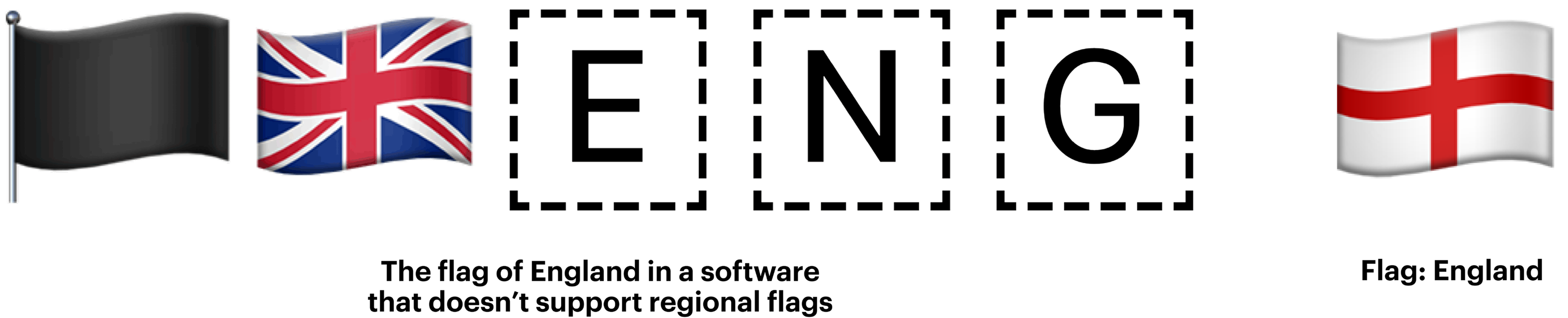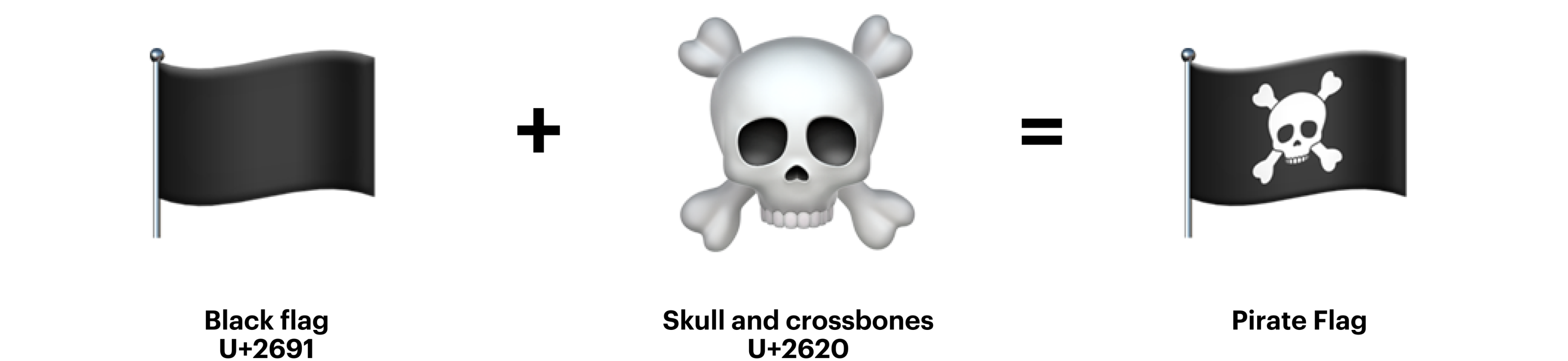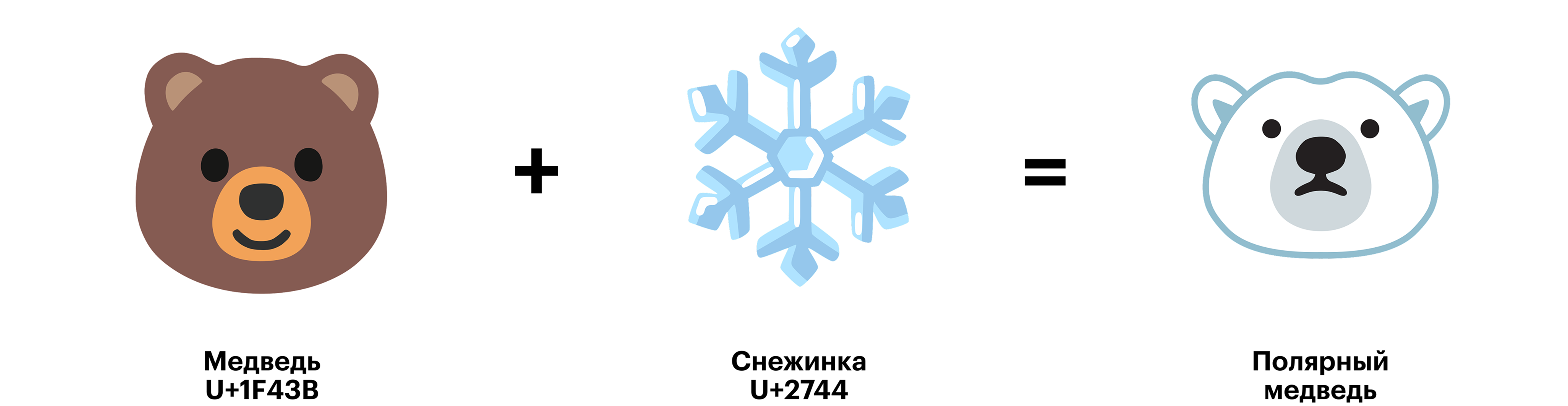
This piece is a part of a joint project by type.today journal and a website focused on various grammatical and broader language issues, gramota.ru. In our series of three episodes, we will approach the topic of emoji from a technological perspective, share how people of different cultures understand certain emojis differently, and address whether it is possible to sue someone who has (allegedly) picked the wrong emoji.
Emojis look different on different platforms and devices. If we draw an analogy with the type world, the emojis are more of a writing system, and each platform (and every operating system) uses its own font to display them.
I don’t understand emoji hostility in type design. A new globally understood ideogrammatical alphabet is developing right before our eyes. It’s not made of monochromatic strokes like the rest of the Unicode table, but it’s a writing system. Ray Larabie TypeDrawers
Apple Emoji is probably the most widely used of these typefaces,
Emoji color fonts
Today’s most common emojis are those offered by color fonts of various formats. Apple emojis are an SBIX font comprised of bitmap images. A designer working on an SBIX uploads five images of different sizes into the font editor software, ranging from 32 to 512 pixels wide. That is why one cannot use SBIX fonts in a very large size.
There are also color fonts comprised of vector
Some type designers are skeptical towards the idea of creating emoji fonts, as it is virtually impossible to draw a full emoji set without using color, with browser support still being far from perfect when it comes to color fonts.
I’m not very likely to include emoji as part of the character set in my future fonts. This is partly because of the technical issue: most emoji require or at least benefit from color. No single color font format is very well-supported. Thomas Phinney TypeDrawers
Emoji ligatures
Some of the emojis we’re used to are actually ligatures. With the help of a special symbol that ‘glues’ the ligatures, Zero Width Joiner, multiple emojis with different meanings are transformed into one.
For instance, the female scientist emoji (👩🎓) is made up of a woman emoji (👩) and an academic (aka graduation) cap (🎓) emoji. The woman astronaut emoji (👩🚀) is made up of a woman (👩) and a rocket (🚀). The full list of emoji ligatures is available on the Unicode website. Since September 2023, the Zero Width Joiner helps control the direction of emoji.
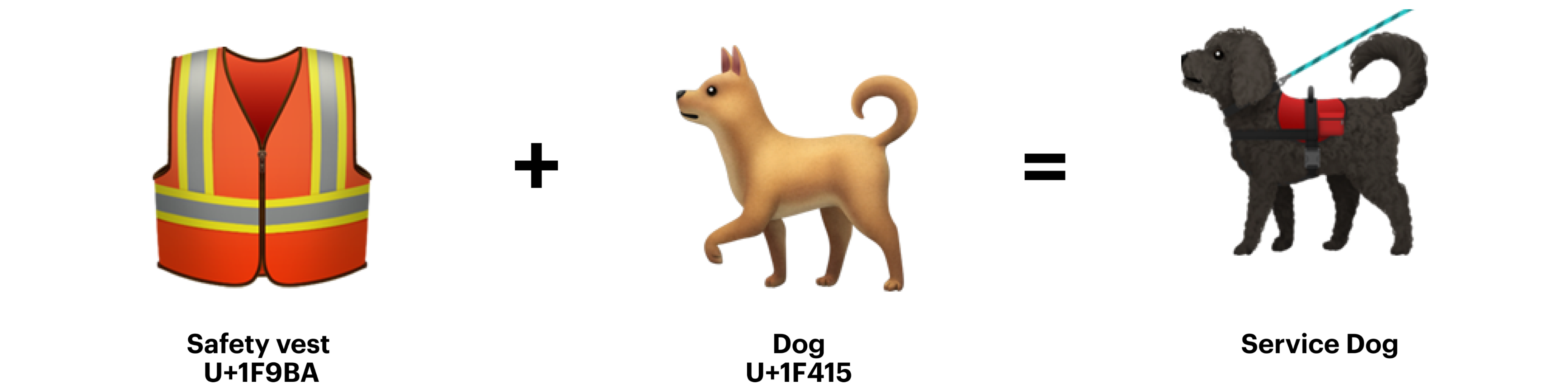
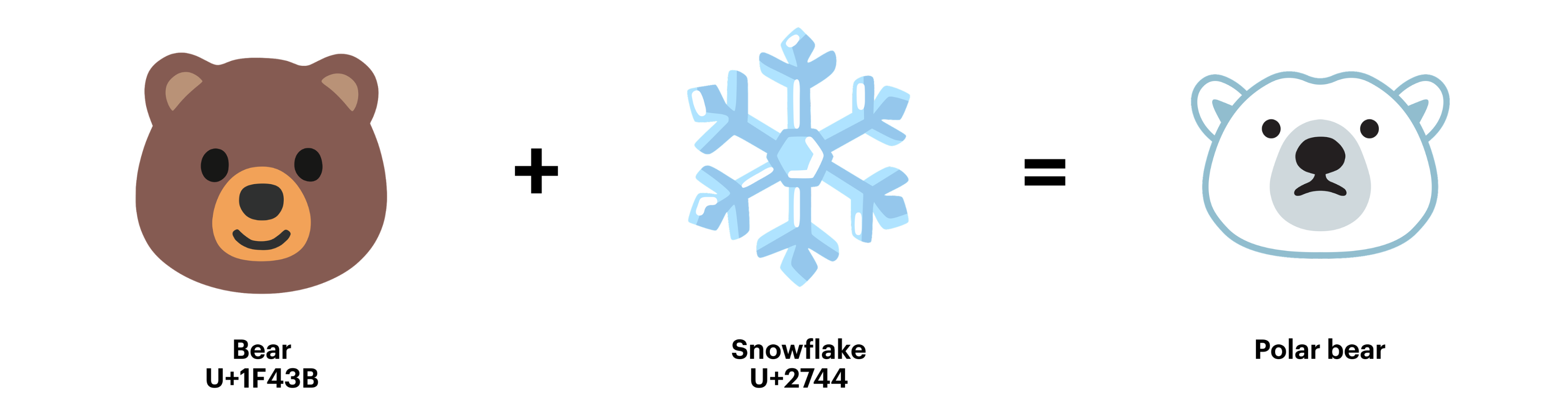
That is, a man with a black cane moving to the right (🧑🦯➡️) is a ligature comprised of a man, a white cane, and a right-pointing arrow. Before 2023, it was impossible to change emojis’ direction, and an emoji facing one way on Android could be facing the other way on iOS.
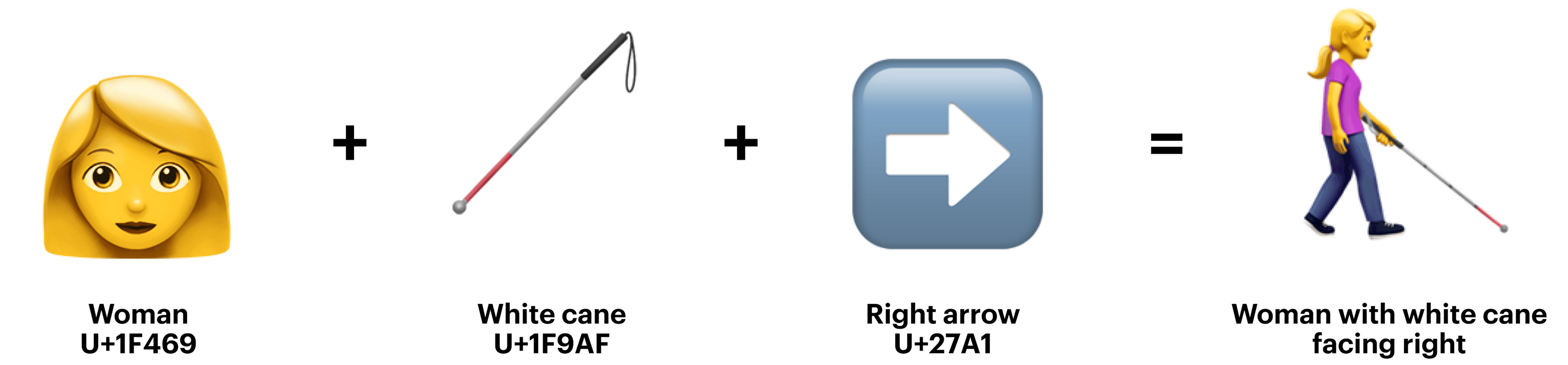
Not all platforms and operating systems support this update, and the direction could be changed for not just any navigation emoji. For example, the plane taking off (✈️) still exists only as a right-facing emoji, with this direction being natural only for those who use languages written from left
Skin color emoji
Skin tone emojis are combined characters (technically, they are structured in the same way as accent marks in many typefaces). Hand emojis and face emojis with specific skin color are made up of a basic yellow face emoji and a modifier in charge of a particular skin tone.
That said, skin tones do not exist as separate emojis.
A comic by XCKD
Emojis and spaces
There are no text formatting rules when it comes to emojis. There are numerous posts on Reddit where users discuss such topics as whether you’re supposed to space an emoji from a word or not. It is most likely that coming up with one common rule for all emojis and all fonts is an impossible task.
Noto Color Emoji and Apple Emoji are monospaced fonts, and in such typefaces, the one-piece swimsuit emoji’s 🩱 side bearing is much larger than that of the necktie emoji 👔. Meaning, a necktie-and-shirt emoji spaced from text will end up in the same location as a non-spaced swimsuit.
However, not all emoji fonts are monospaced ones, and the very same emoji might require a space in one typeface and not in another.
Flag emojis
There are hundreds of countries and regions in the world, and this number is ever-increasing. If Unicode were to create a separate code point for each new flag in its character table, the existing flags would take up over 250 code points. That is why Unicode developed an alternative system for encoding flags.
The system features 26 special symbols that visually resemble the letters of the English alphabet placed in dashed boxes. The sequence of two such symbols turns into a country’s flag. For example, the combination of 🇺 and 🇸 is the US flag (🇺🇸). The codes for creating flag emojis correspond to the two-letter country codes according to the ISO 3166-2 standard.